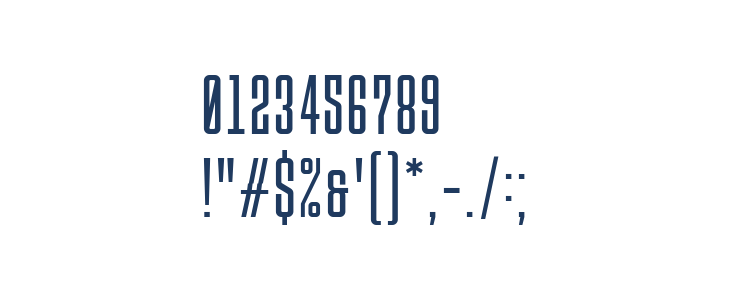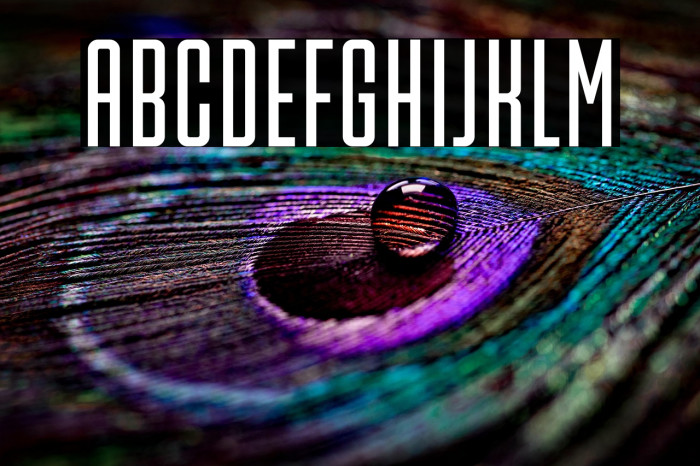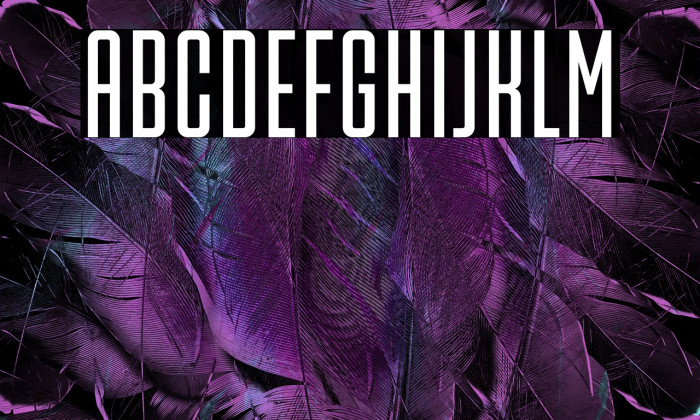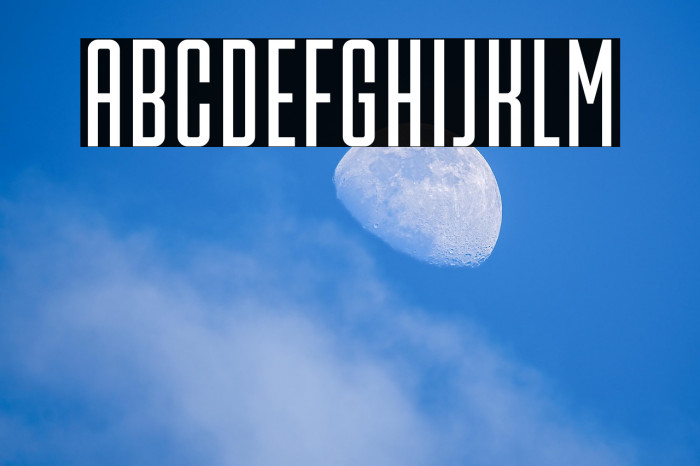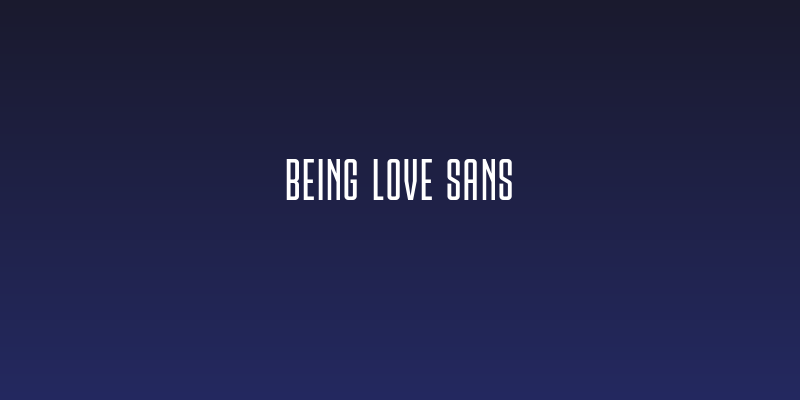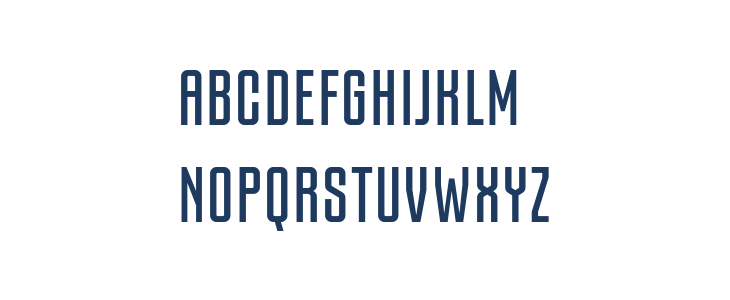
Being Love Sans Font
Being Love Sans Description
This font features a bold and modern sans-serif style with a strong vertical emphasis. The characters are tall and narrow, giving it a condensed appearance. The uniform stroke width across all characters provides a clean and cohesive look. The uppercase and lowercase letters maintain a consistent height, enhancing readability. The numerals are aligned with the overall style, offering a sleek and contemporary feel. Special characters are designed to match the font's aesthetic, making it versatile for various uses.
| Proposed Projects | Ideal for headlines, posters, branding, and editorial design where a modern and impactful look is desired. |